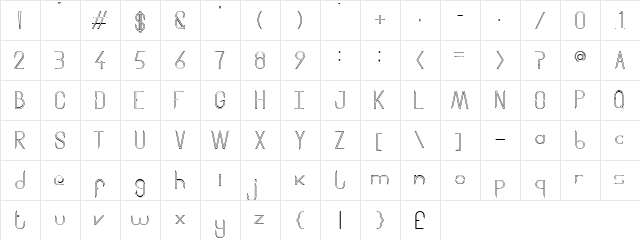
Aggressor Outline Aggressor Outline
Design Context for Aggressor Outline Typeface
Aggressor Outline brings ornamental detail and strong personality to headlines and identities, where visual impact matters more than quiet functionality.
Font Pairing: Pair with a clean neutral sans-serif for body copy to let Aggressor Outline's character lead without overwhelming the composition.
Pro Tip: Use Aggressor Outline exclusively at display sizes — it was designed to be seen, not read at length. Let a neutral companion handle body copy.